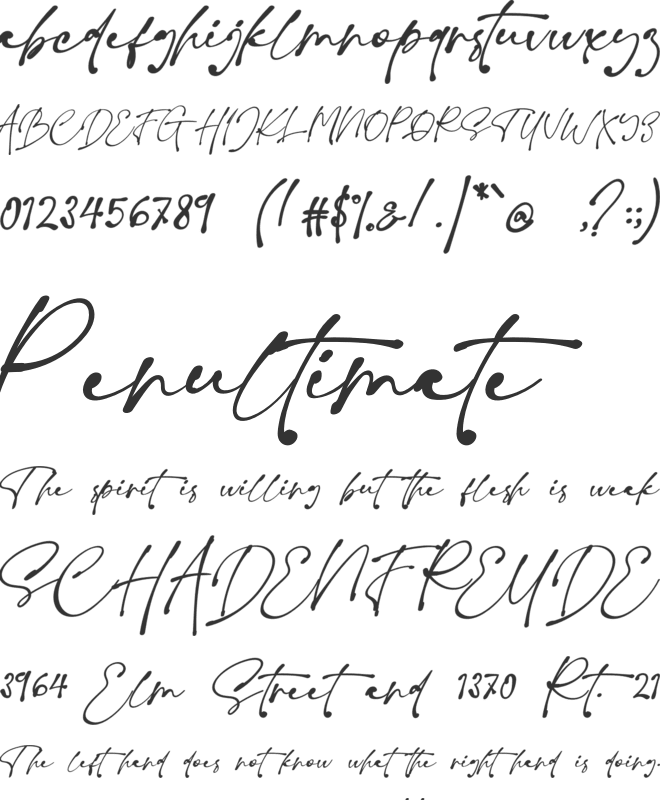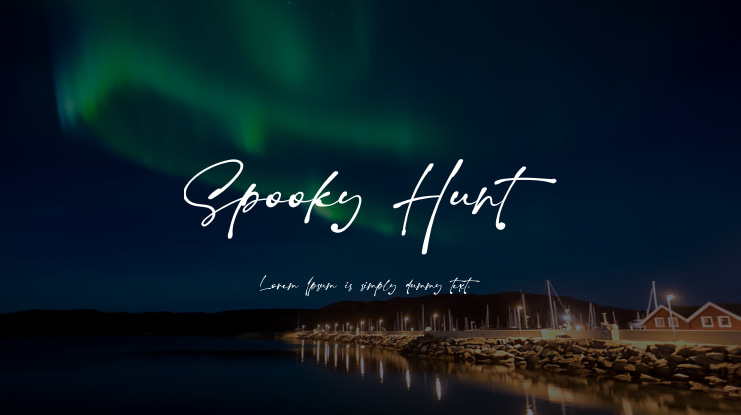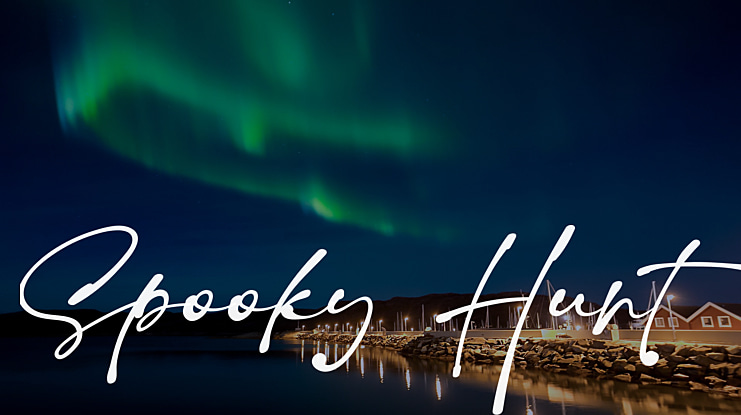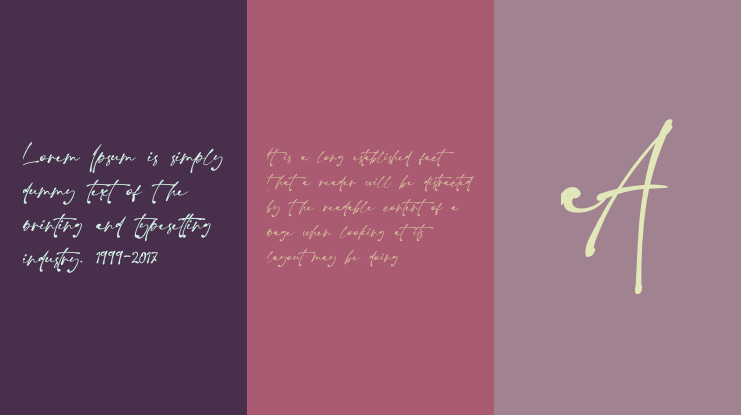
Spooky Hunt Font
Spooky Hunt feels equally sophisticated and asymmetrical. It looks stunning on wedding invitations, thank you cards, quotes, greeting cards, logos, business cards, and every other design which needs a customized touch.